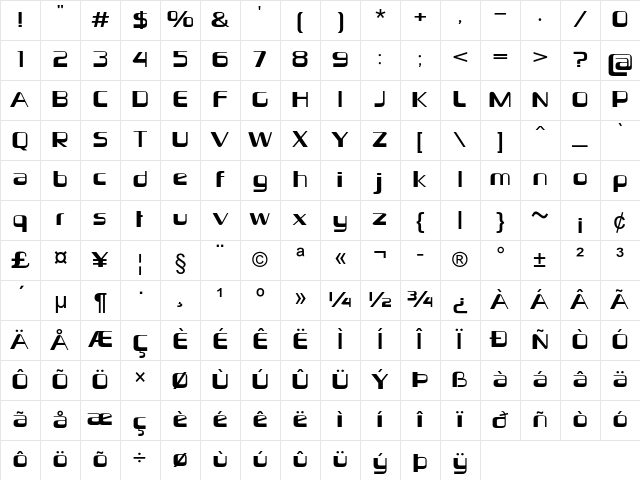
Complete Toffler Regular glyph index. Displaying only characters natively supported by Toffler Regular font.
Toffler is a composed and adaptable typeface that performs quietly and consistently across a wide range of design contexts.
Who designed the Toffler Regular font?